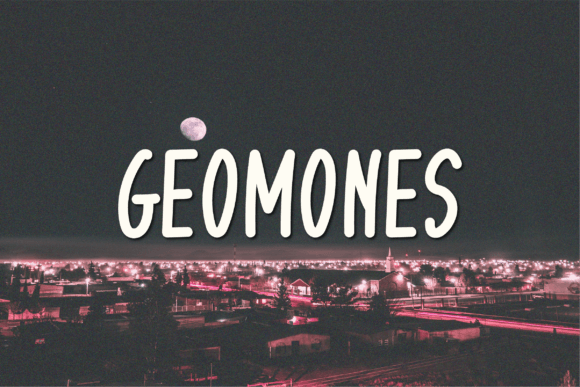
Geomones Font
Dive into the world of Geomones Font, a captivating sans serif font family that exudes individuality and charm. Designed by the creative minds at Becraft, this font is a visual delight, crafted to make a statement in any design project.
With its playful all-caps characters, Geomones brings a touch of whimsy and joy to your creations. Whether you're designing eye-catching logos, crafting personalized invitations, or creating engaging social media posts, this font is sure to leave a lasting impression.
Step into a world of boundless possibilities with Geomones. Its versatility knows no bounds, adapting seamlessly to a myriad of design styles and themes. From vibrant posters to elegant brochures, from quirky T-shirt designs to captivating website layouts, Geomones becomes an integral part of your visual storytelling.
Unleash your creativity and embrace the playful spirit of Geomones. Let your imagination soar as you craft designs that resonate with your audience, leaving them captivated by your unique style and creativity. With Geomones by your side, the possibilities are endless.